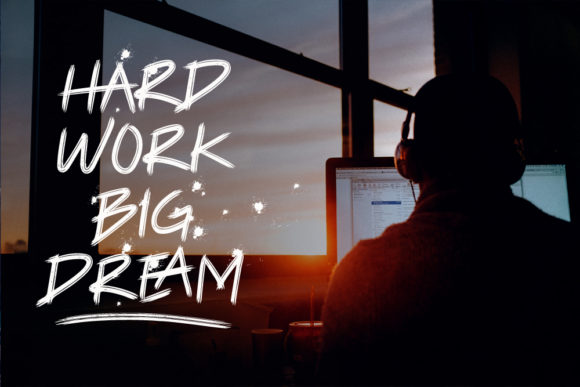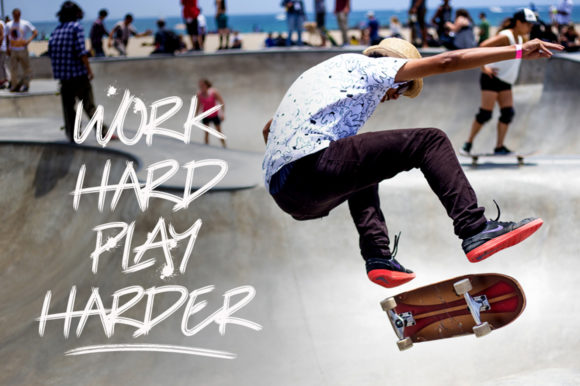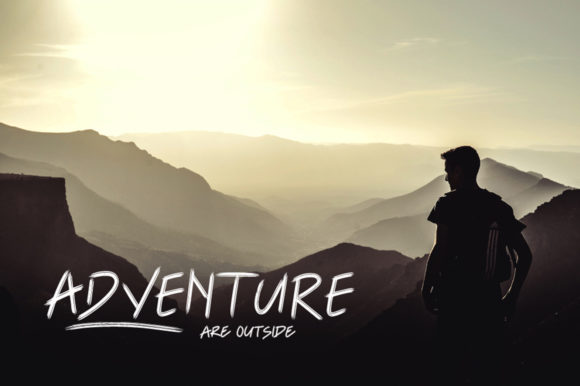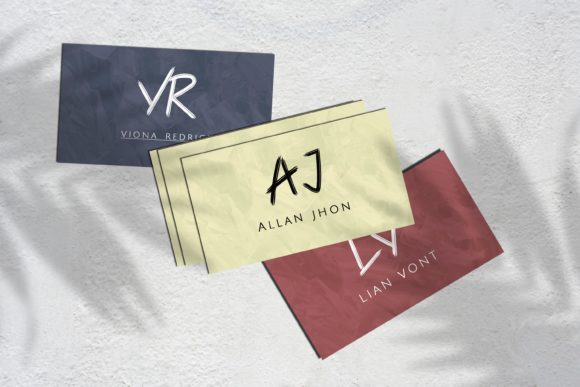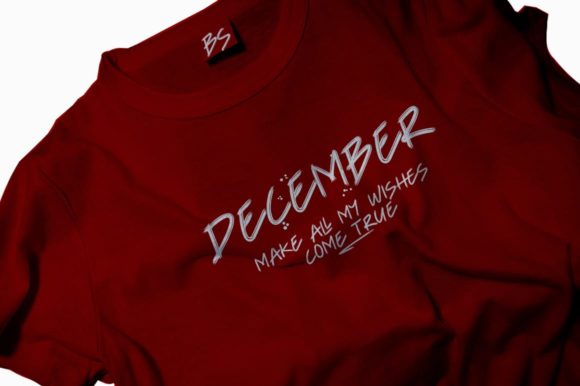
Liquwella Font
About Liquwella Font
Meet “Liquwella,” the one-of-a-kind handwritten font crafted with the artistry of a brush pen. This font is a true gem, offering a perfect blend of uniqueness and intrigue that will captivate your imagination. Embrace the versatility of “Liquwella,” as it effortlessly complements a diverse range of design projects, allowing you to create truly spectacular and eye-catching visuals.
The artistic flair of “Liquwella” shines through in every stroke, adding a touch of creativity and originality to your creations. The brush pen inspiration brings an organic and natural feel, making this font a fantastic choice for designs that need a personal and handcrafted touch.
From wedding invitations to social media posts, “Liquwella” adapts beautifully to each project, leaving a lasting impression on viewers. Its captivating style will make your designs stand out and grab attention.
For quotes and greeting cards, “Liquwella” adds a touch of whimsy and charm, making each message feel heartfelt and genuine.
In branding and logos, this font becomes a signature of creativity and uniqueness, reflecting the identity of your brand with flair.
With its versatility and distinctive flair, “Liquwella” is the perfect choice for artists, designers, and creatives seeking a font that breaks the mold and makes a statement.
Embrace the creativity and artistry of “Liquwella” and discover how it can elevate your designs to new heights. Fall in love with its unique style and let it be the font that sets your work apart and leaves a lasting impression on all who see it. Get ready to experience the magic of “Liquwella” as you infuse your designs with its captivating and versatile charm. The possibilities are endless when you let the artistry of “Liquwella” inspire your creativity!